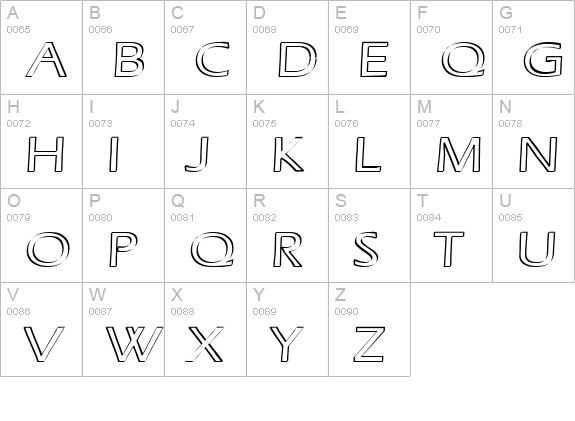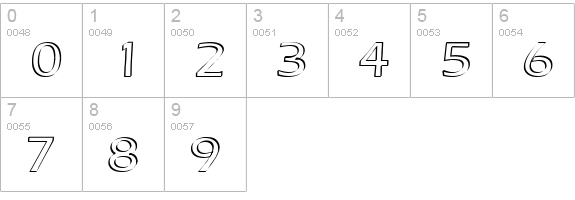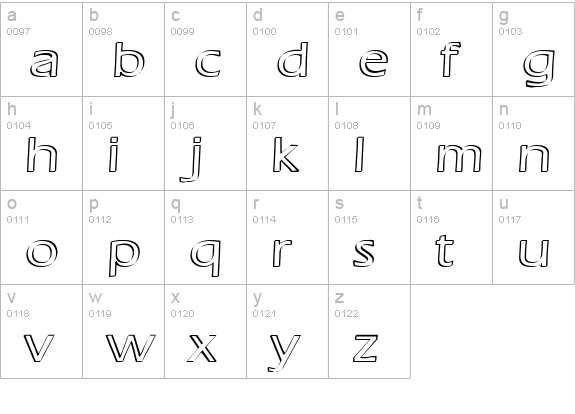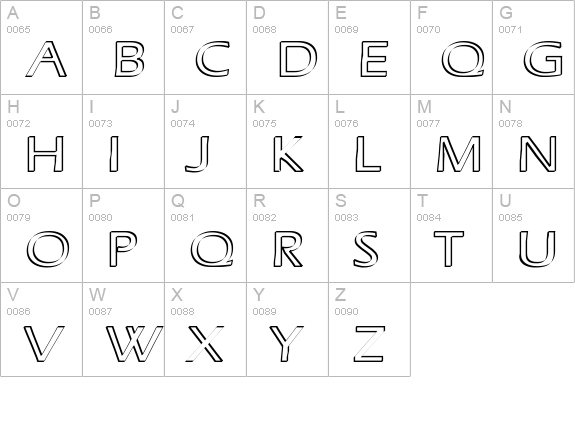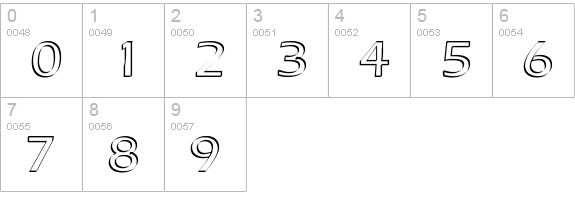
Ruffian Outline Font Details
Ruffian Outline font is a bold and stylish typeface that exudes confidence and modernity. With its clean lines and sharp edges, this font is perfect for making a statement in any design project. Whether you're creating a poster, logo, or branding materials, Ruffian Outline will surely catch the eye of your audience. The best part? Ruffian Outline font is completely free to download at FontsMarket.com. Yes, you read that right - you can get your hands on this striking font without spending a dime. So why wait? Elevate your designs with Ruffian Outline and make a lasting impression today!